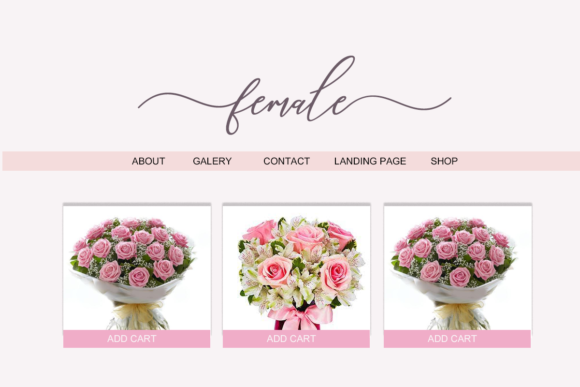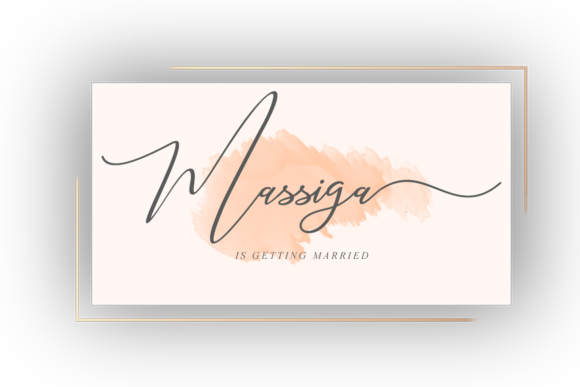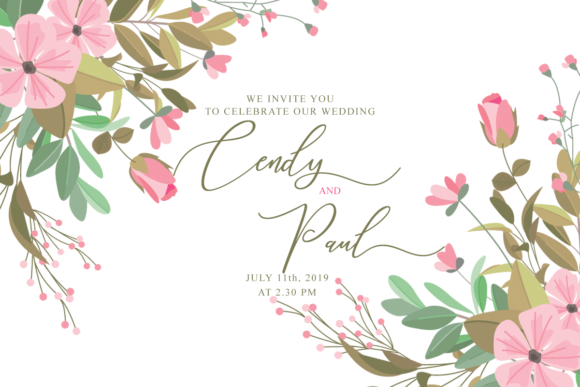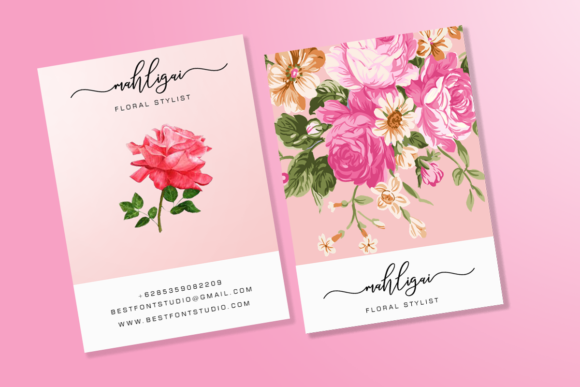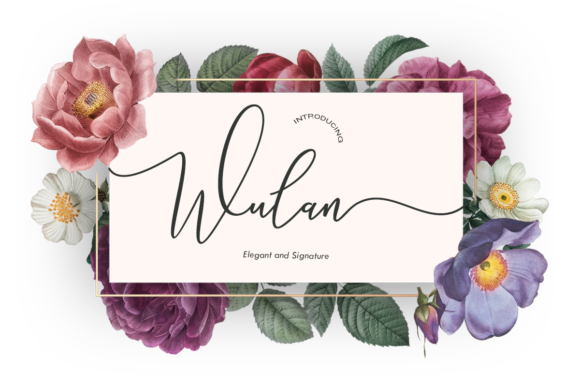
Wulan Script Font
About Wulan Script Font
Wulan is a stunning script with a contemporary vibe. Get inspired by its unique look, and add a touch of elegance to any creative project!